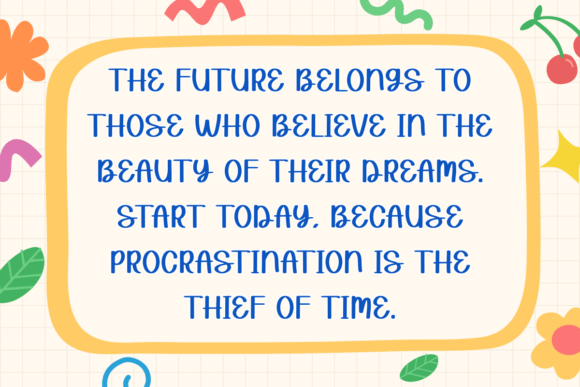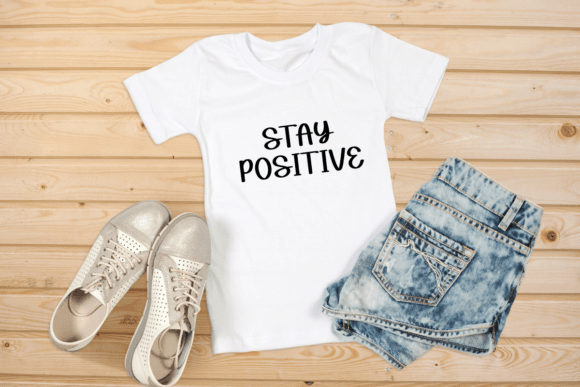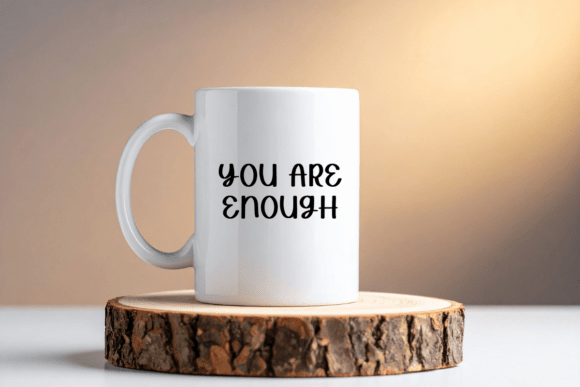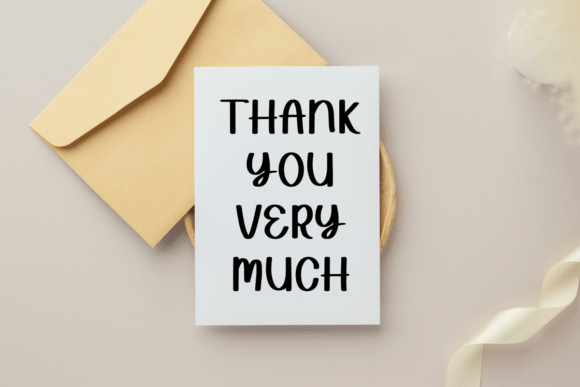
Introducing Children Happiness Font: The Ultimate Choice for Adding a Cute Touch
Are you a designer, crafter, or DIY enthusiast looking for a font that can add a fun and cute touch to your projects? Look no further than the Children Happiness Font! This fancy handwriting font is designed to bring a smile to your face and a playful vibe to your creations. In this article, we’ll dive into the features and benefits of the Children Happiness Font, and explore its endless possibilities for various projects.
What is Children Happiness Font?
Children Happiness Font is a unique and charming handwriting font that boasts a cute and playful style. Its irregularities and quirks give it a personal and human touch, making it perfect for projects that require a friendly and approachable feel. Whether you’re creating quotes, stickers, mugs, or t-shirts, this font is sure to add a delightful touch that will capture the hearts of your audience.
Key Features of Children Happiness Font
- Cute and Playful Style: The Children Happiness Font features a distinctive handwriting style that’s both fun and adorable.
- Highly Versatile: This font is suitable for a wide range of projects, from paper crafts to digital designs.
- Easily Readable: Despite its playful nature, the font remains clear and easy to read, making it perfect for quotes, titles, and short texts.
The Children Happiness Font is an incredibly versatile font that can be used for a multitude of projects. Here are some ideas to get you started:
- Quotes and Posters: Add a playful touch to your inspirational quotes, posters, and prints.
- Stickers and Labels: Create adorable stickers and labels for kids’ crafts, party favors, or product packaging.
- Mugs and Tumblers: Design fun and colorful mugs and tumblers that make perfect gifts or personal accessories.
- T-Shirts and Apparel: Create cute and playful designs for kids’ clothing, party shirts, or promotional items.
- Birthday Cards and Invitations: Add a personal touch to your greeting cards, birthday invitations, and party decorations.
- Planner and Journal: Use the Children Happiness Font to add a fun and creative element to your planners, journals, and notebooks.
- KDP Interior and Branding: Create engaging and child-friendly book interiors, covers, and branding materials.
- Laser Cut and Greeting Cards: Design intricate and colorful laser-cut cards, gift tags, and decorations.
Why Choose Children Happiness Font?
With so many fonts available, why choose Children Happiness Font? Here are a few compelling reasons:
- Unique and Eye-Catching: This font stands out from the crowd with its distinctive and playful style.